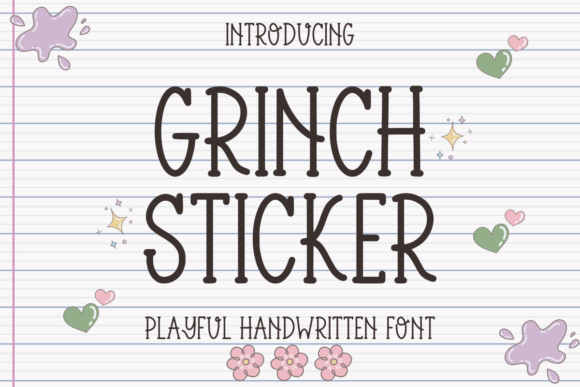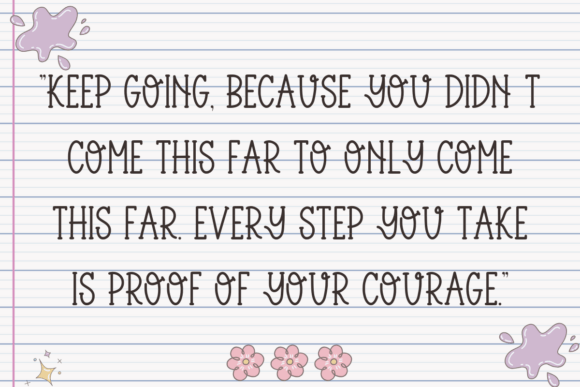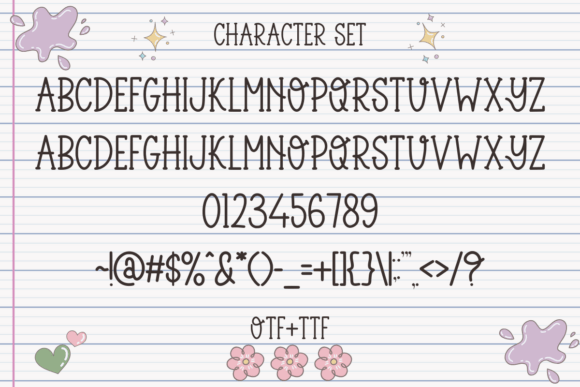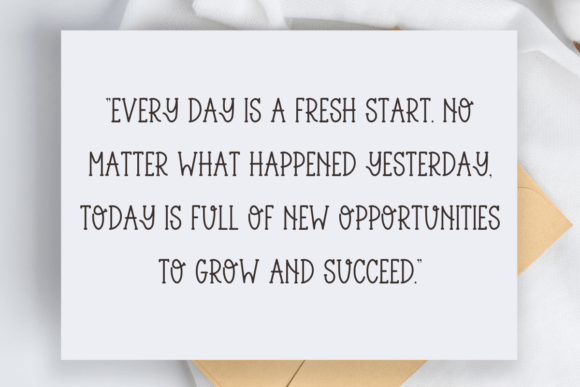
About the Grinch Sticker Font
From logos to headlines, the Grinch Sticker Font is the perfect choice for making a lasting impression. Grinch Sticker is a fun and playful font that’s perfect for crafts, planners, KDP, stickers, greeting cards, and more. With its cute and friendly style, it works great for Cricut, sublimation, and creative DIY projects. Ideal for crafters, designers, and makers!
Grinch Sticker Font’s playful energy makes it ideal for children’s books, branding for playful businesses (e.g., toy stores, bakeries), and eye-catching social media graphics. Its informal style, however, is less suitable for formal documents, lengthy text blocks, or applications requiring high readability, such as websites or user interfaces.
For optimal visual impact, pair Grinch Sticker with a clean sans-serif like Open Sans for body text or a simple serif like Lora for a touch of sophistication. A contrasting geometric sans-serif could also add a modern edge.
The font’s core personality is undeniably cheerful and friendly, making it a perfect choice for projects needing a lighthearted and approachable feel.